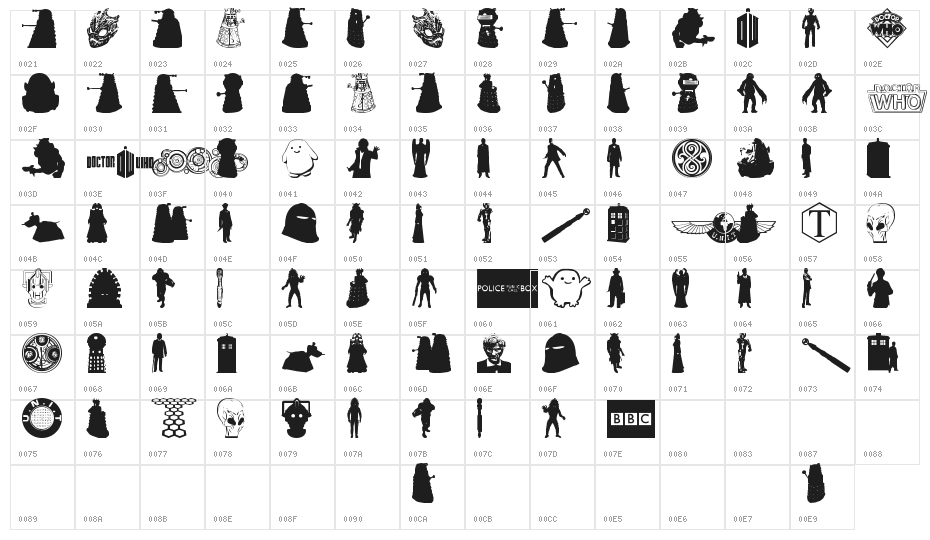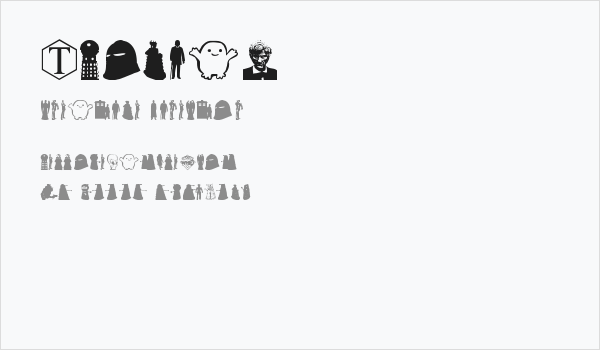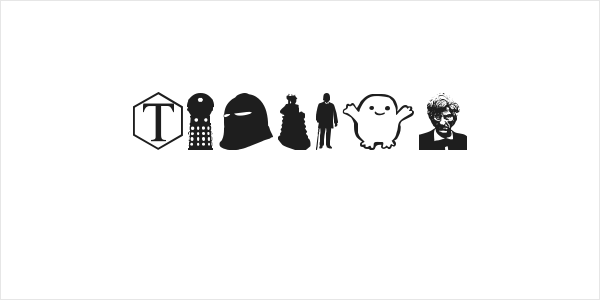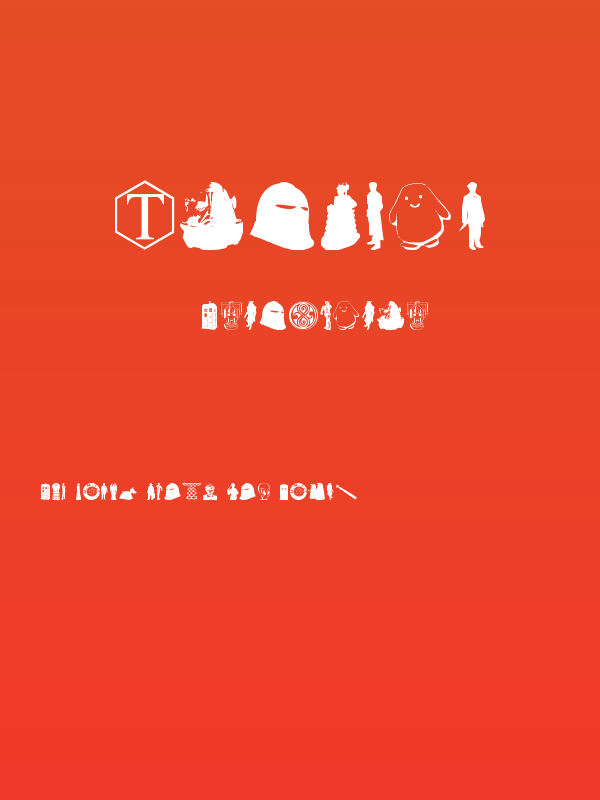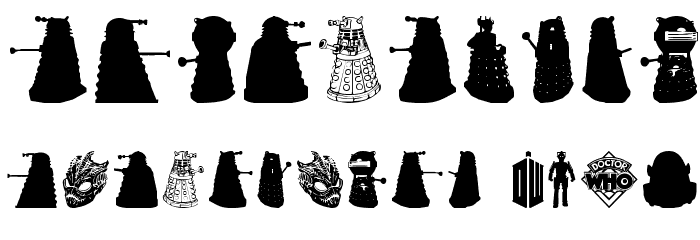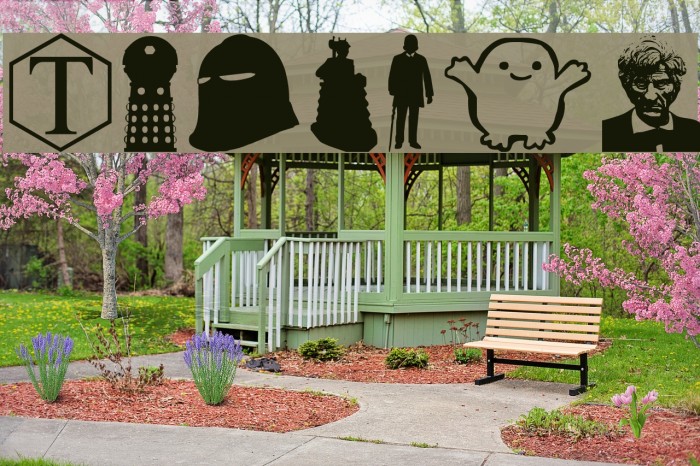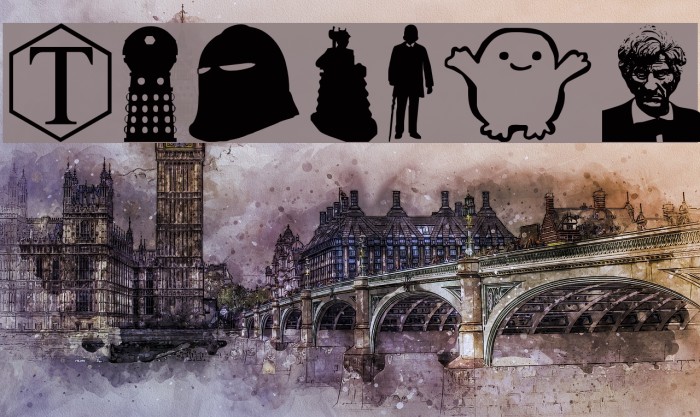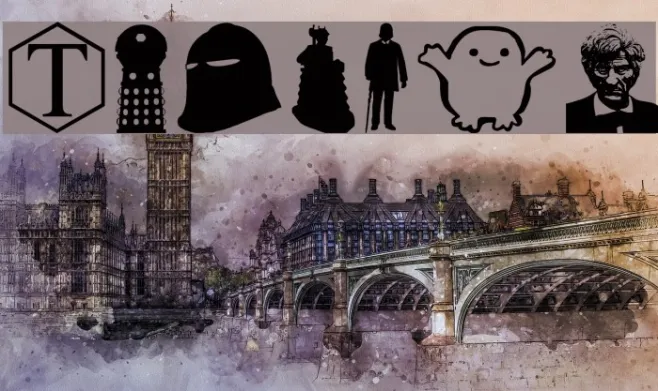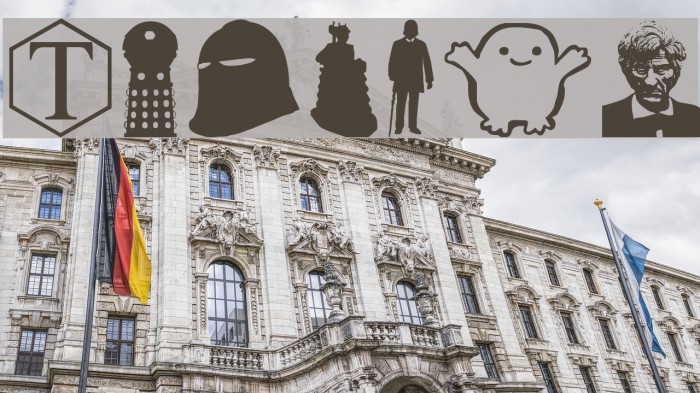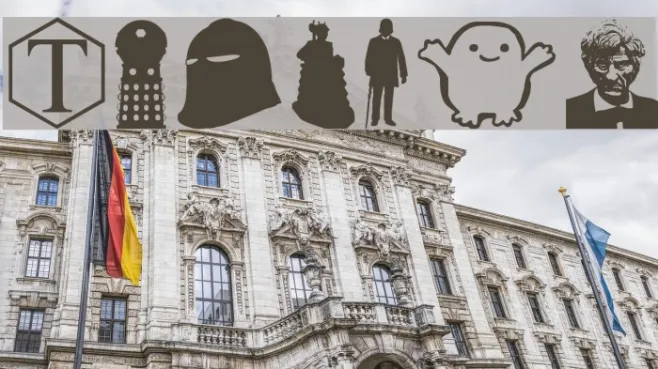
Whovian Font
Whovian Description
A decorative, themed dingbat font featuring silhouettes and icons inspired by a popular British science fiction series. Characters are represented by recognizable figures, objects, and symbols rather than traditional alphanumeric glyphs.
| Overall Style | Decorative, Thematic, Playful |
| Use Case | Logos, Posters, Themed Graphics, Merchandise |
| Proposed Projects | Fan merchandise, event posters, themed invitations, digital stickers, scrapbooking, and social media graphics. |